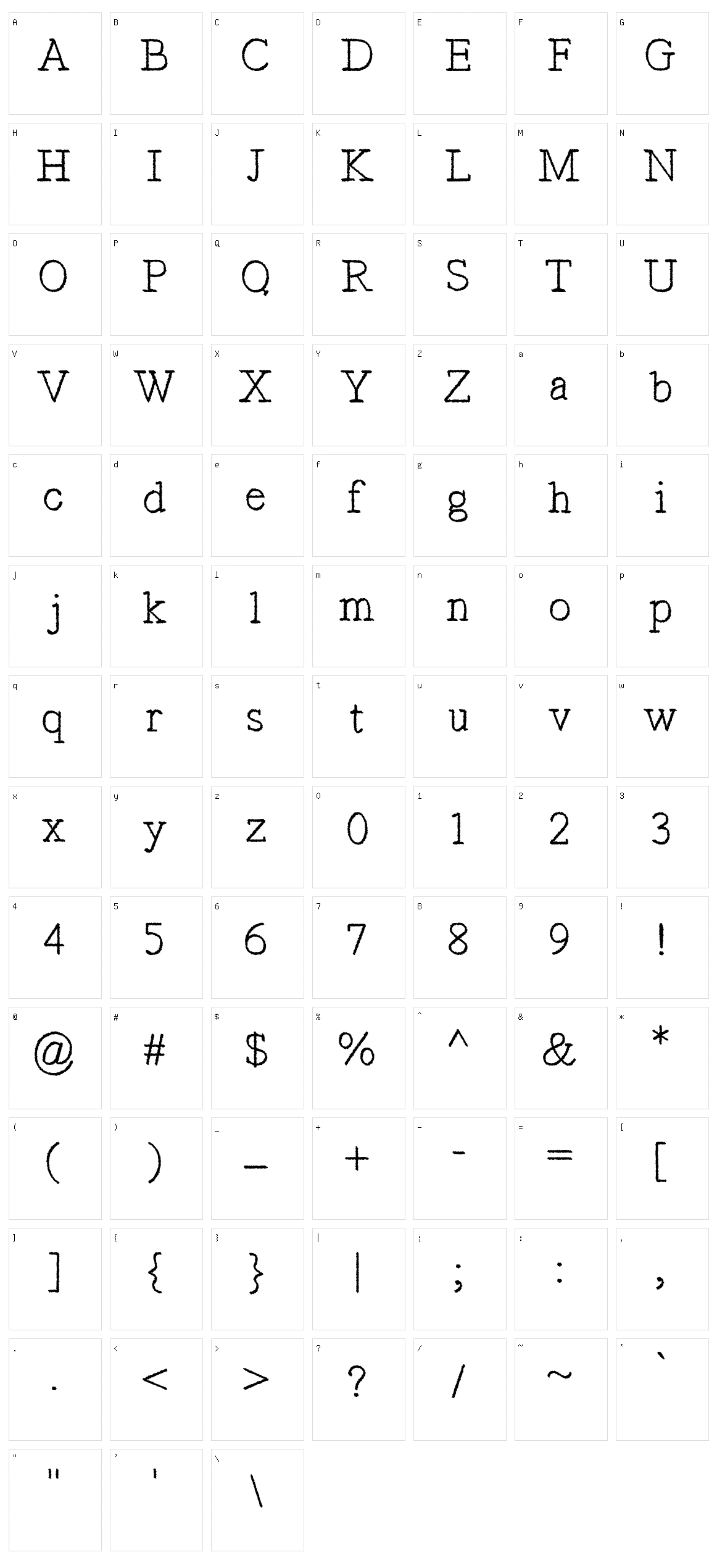
The free font Typist's Pseudonym is carefully designed by Chequered Ink, showcasing a thoughtful balance of creativity and usability and falls under the Typewriter font style. When you download the ZIP file, it contains only 277.81 KB of font files, making it lightweight and quick to download. Please review the license details below to understand permitted usage and distribution rights. If license information is not available, we recommend using this font for personal projects only or contacting the author directly for commercial usage permissions.